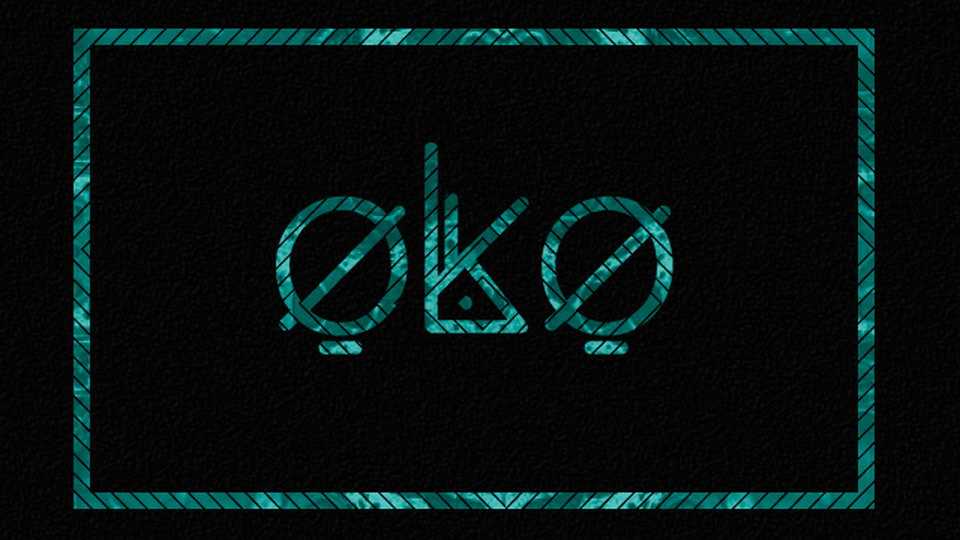
Download – a creative experimental geometric typeface. All letters submitted contain greater or lesser promenor, making oko a visually rich typography. Oko is preferably designed for use in posters and development of branding.